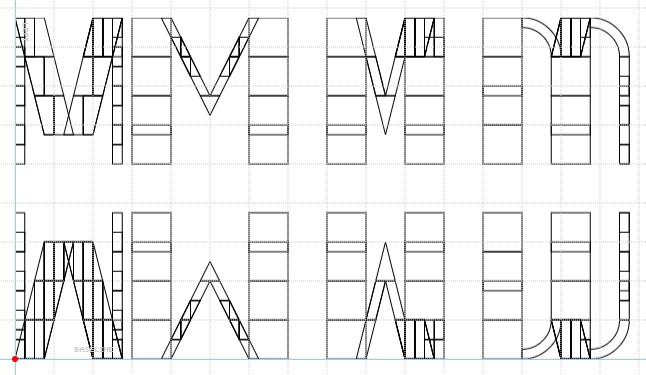
First release.
M and W refined by feedback.
Nice art deco 1920s/30s style font. In my opinion I think the thickness should be on the verticals of the M and W though, and not the diagonals, if that makes sense. M and W just look kind of awkward to me.
I was just getting started with shape compositions and the interface's advanced features.
I like the font, but maybe consider making M and W more consistent with the round principle like double N and V, rather than using diagonal lines.
Fixed.
nice